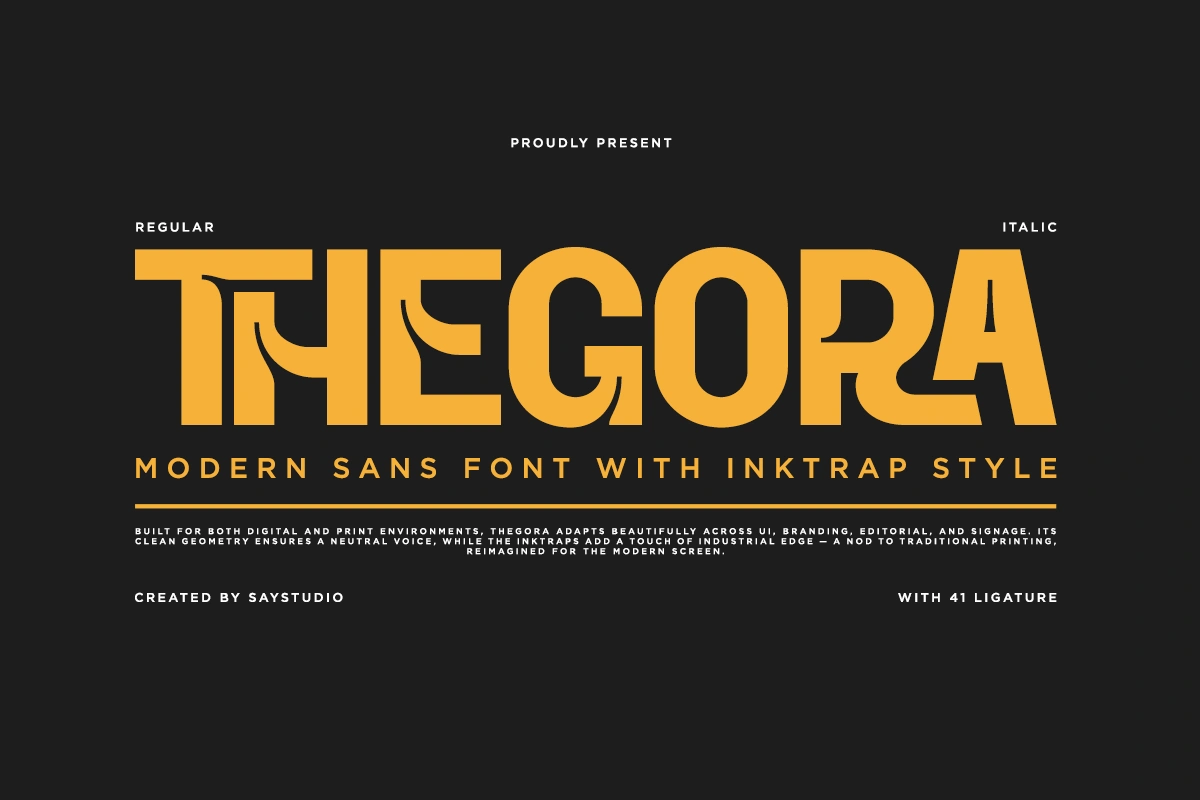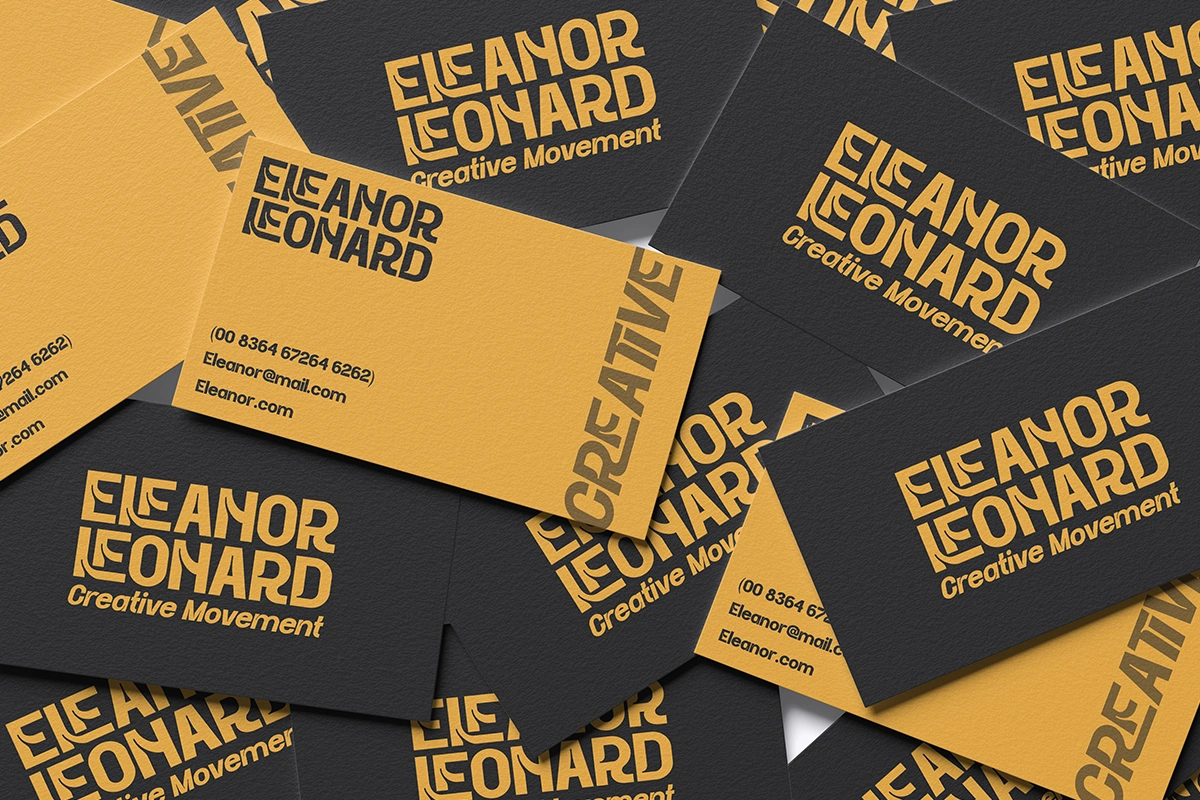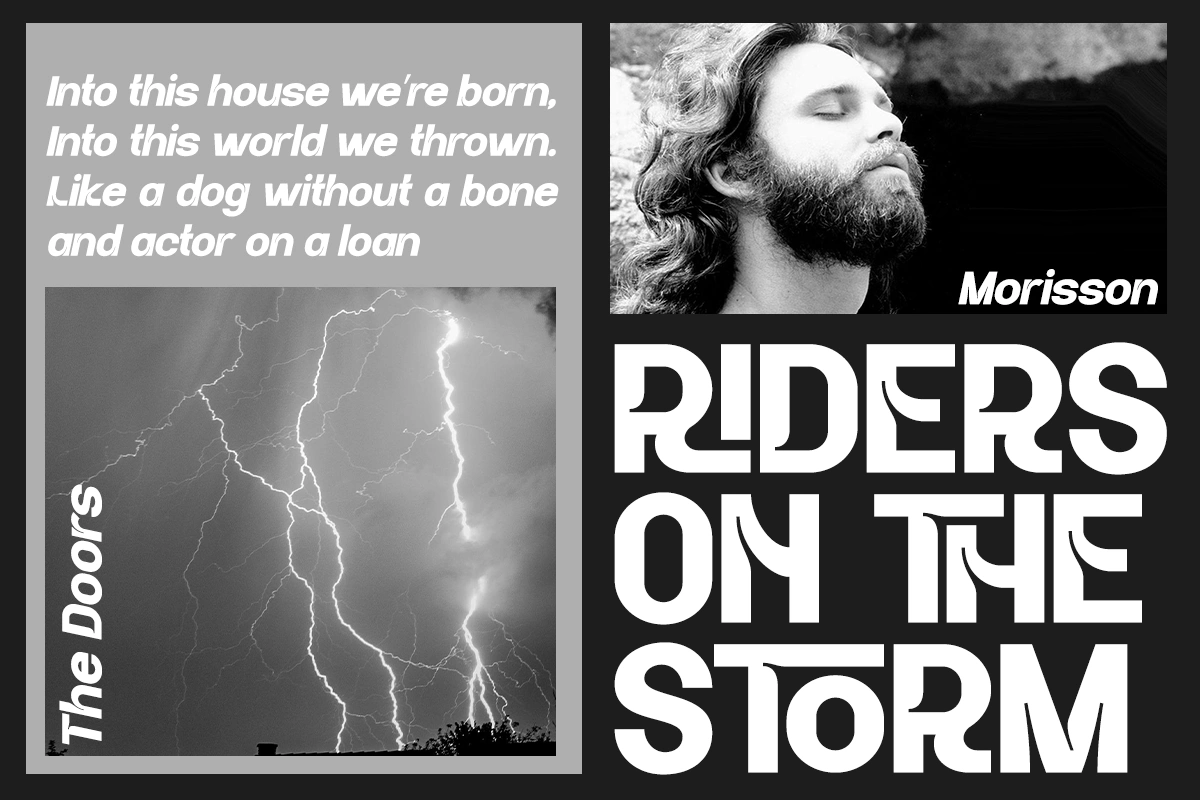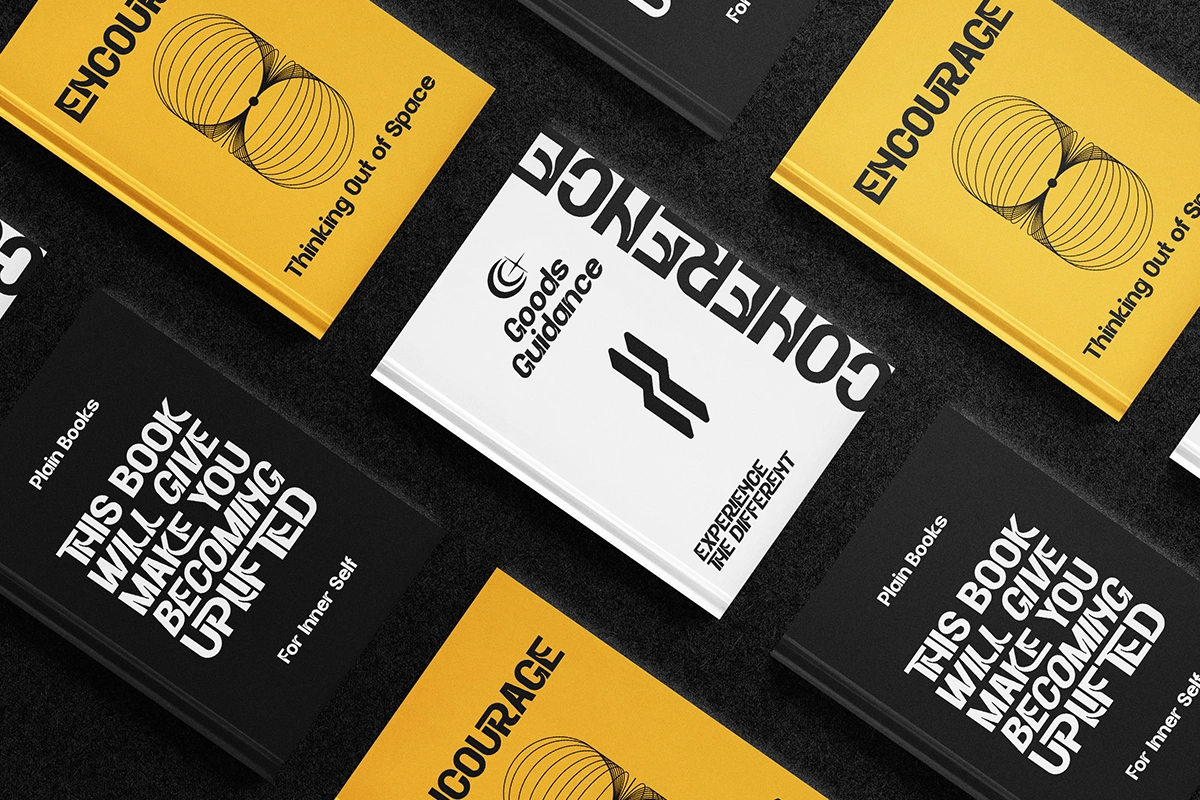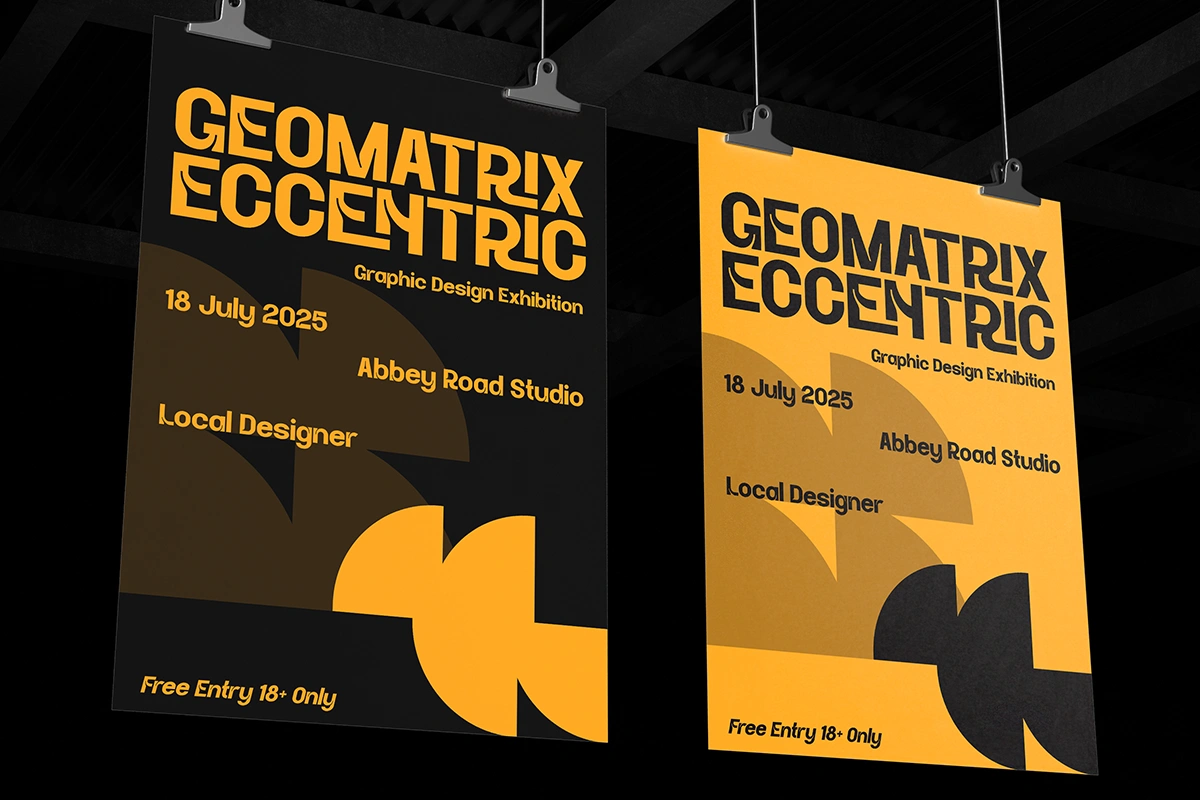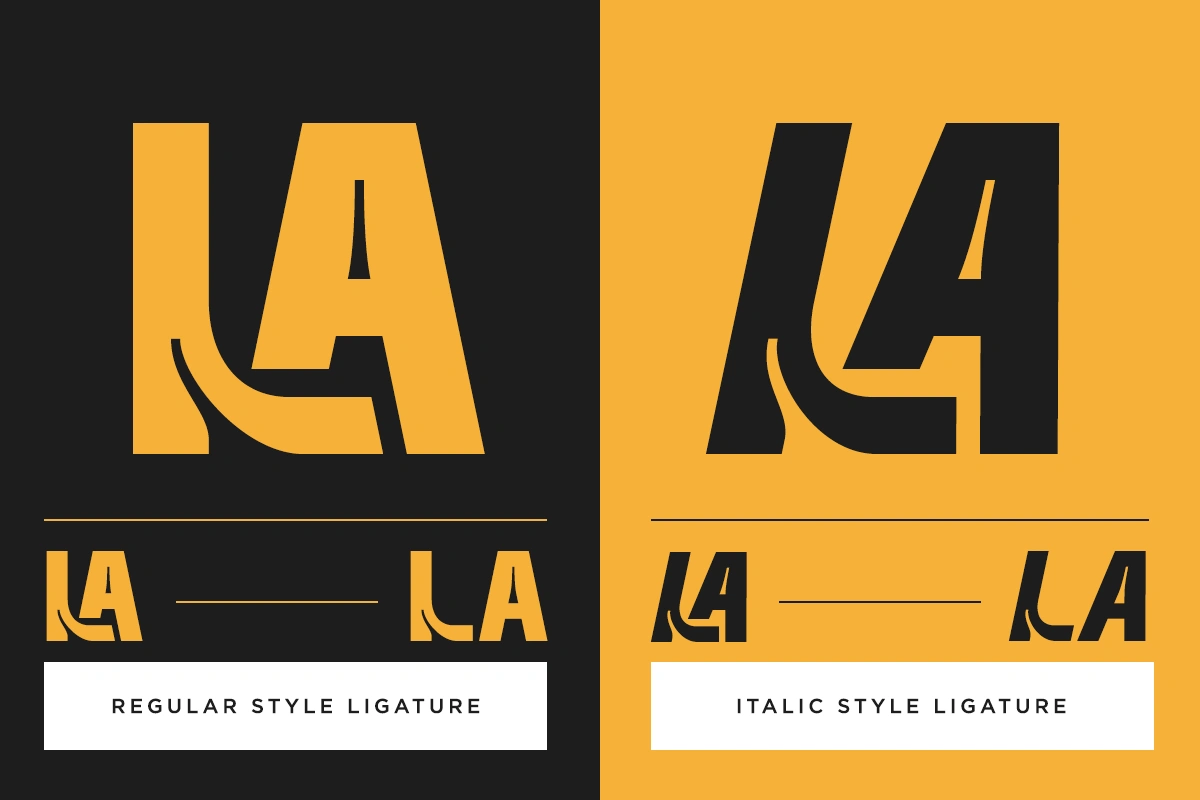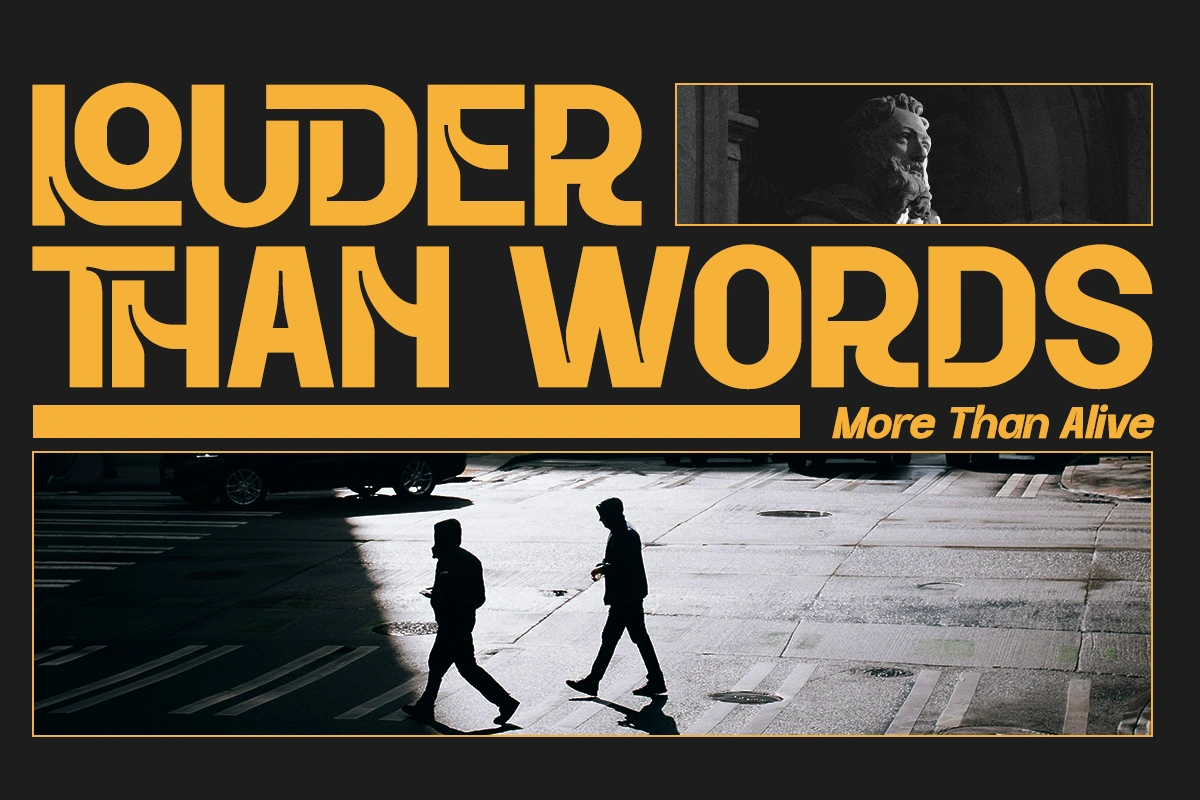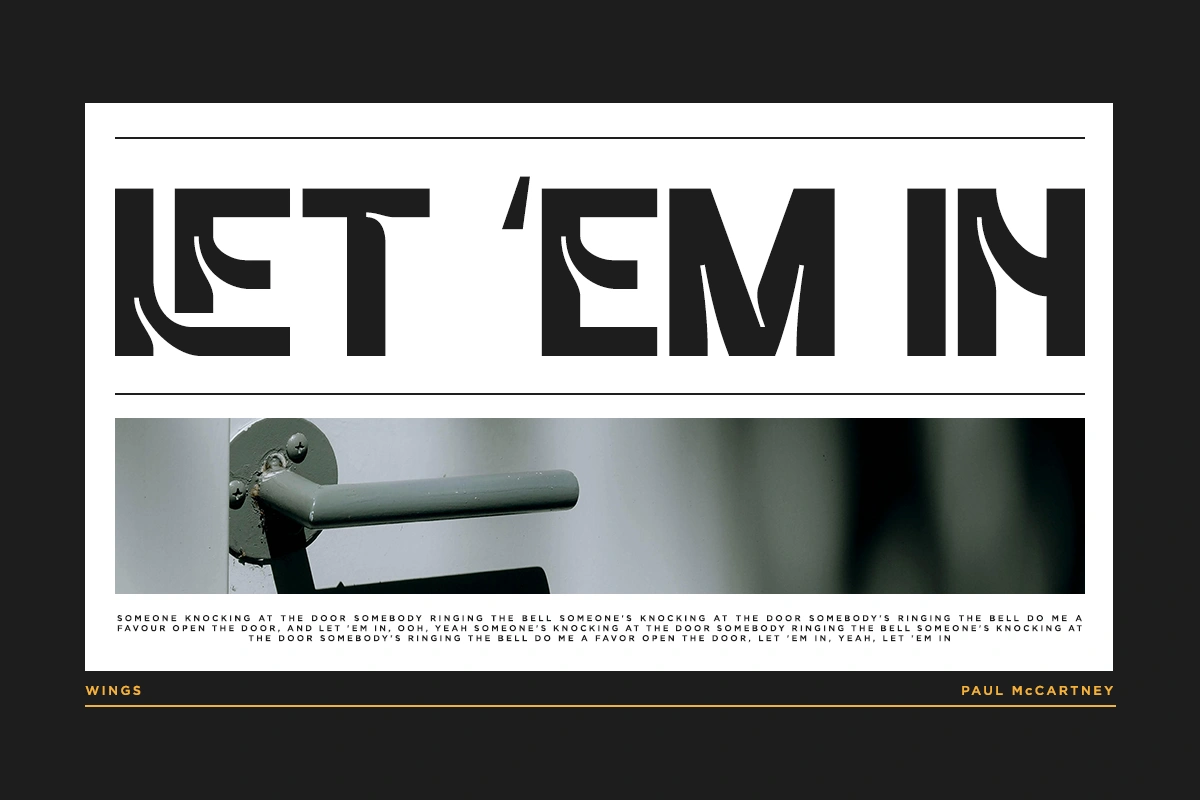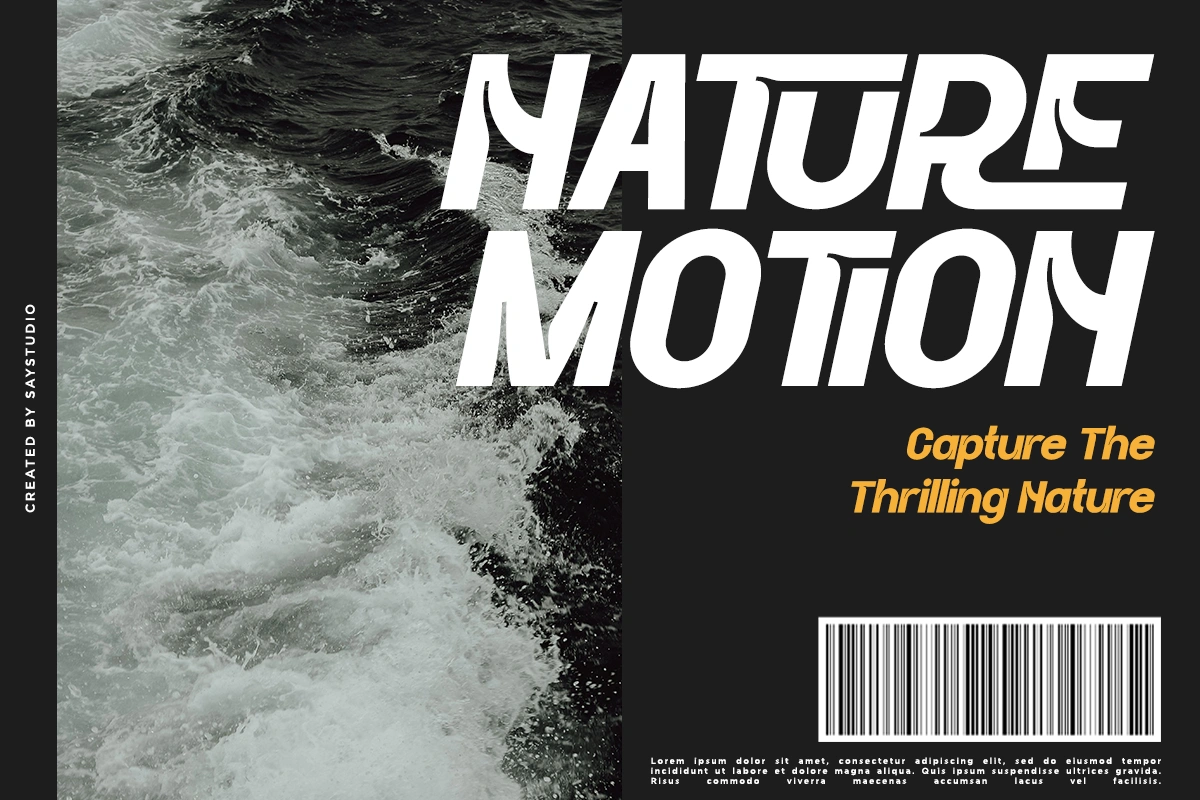
Thegora – Sans Serif Font
Thegora is a striking modern sans designed for versatility and impact. Crafted with precise geometric balance and sharp inktrap details, THEGORA bridges the gap between futuristic tech and industrial print heritage. It’s the perfect choice for UI/UX design, branding, editorial headlines, logos, and signage that demand attention without sacrificing readability. Whats Included - Thegora Regular ( OTF, TTF, WOFF ) - Thegora Italic ( OTF, TTF, WOFF ) - Stylish Ligature - Symbol, Number, Multilingual